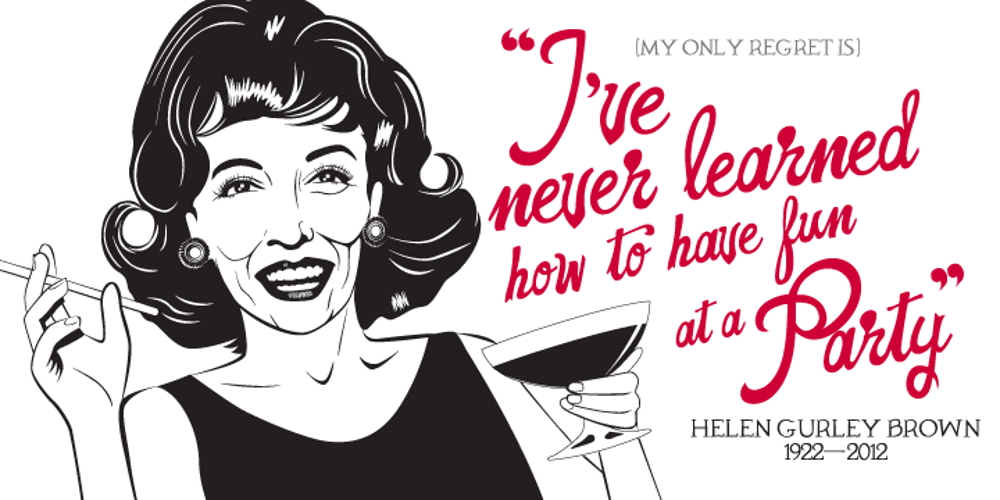
Dubliners Font Family was designed by Matt Frost and published by Matt Frost. Dubliners contains 2 styles and family package options. Dubliners is a fun, hand-drawn, frosting script with alternate giant swash caps. It features glyphs for the entire Western keyboard world including Baltic, Latin, Romanian, and Turkish support. See more and share it at http://facebook.com/FrostFoundry